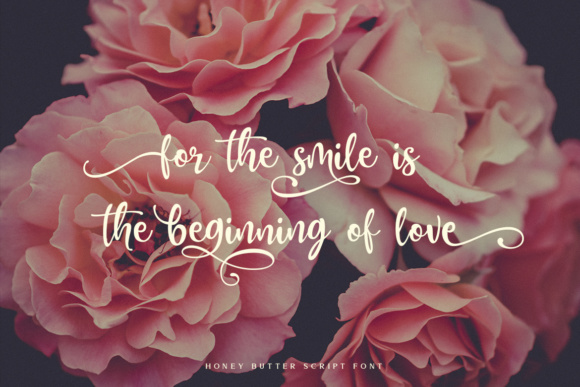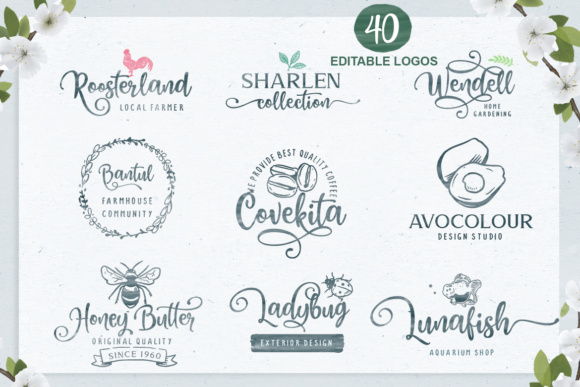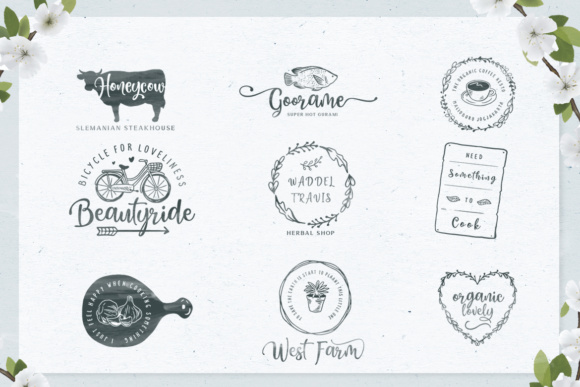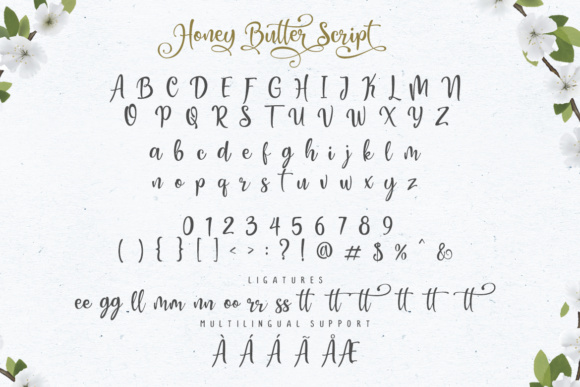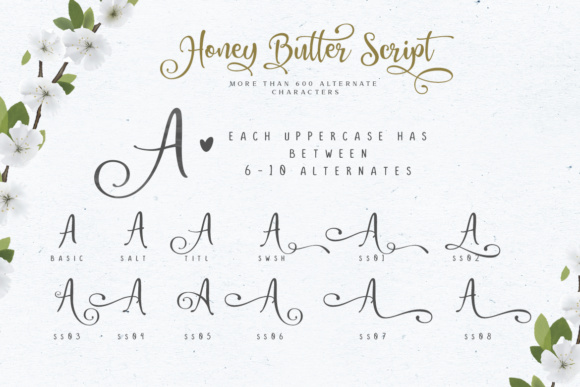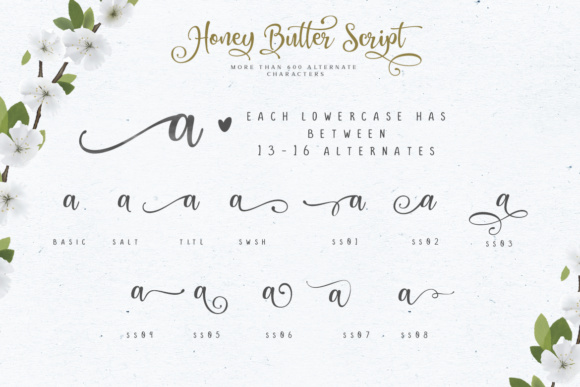
Introduction to Honey Butter Trio Font
The Honey Butter is a beautiful typeface.
It has a feminine and elegant look which is great for logos, invitations and blogs, but can also be used to make a striking headline The Honey Butter font comes in 4 versions: Clean Script, Rough Script, Clean Sans & Rough Sanes.
Key Features of Honey Butter Trio Font
Why Choose Honey Butter Trio Font?
Honey Butter Trio Font offers exceptional quality and versatility, making it a valuable addition to your design toolkit. Whether you’re creating for personal projects or commercial use, Honey Butter Trio Font delivers professional results.